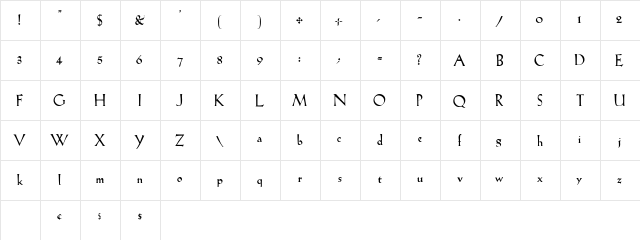
CastillaDisplaySSK Bold
Design Context for CastillaDisplaySSK Typeface
CastillaDisplaySSK brings ornamental detail and strong personality to headlines and identities, where visual impact matters more than quiet functionality. Its bold stroke weight gives it real presence on the page.
Font Pairing: Pair with a clean neutral sans-serif for body copy to let CastillaDisplaySSK's character lead without overwhelming the composition.
Pro Tip: Treat CastillaDisplaySSK as the centrepiece of your typographic hierarchy. One strong heading set in a decorative face can carry an entire layout.